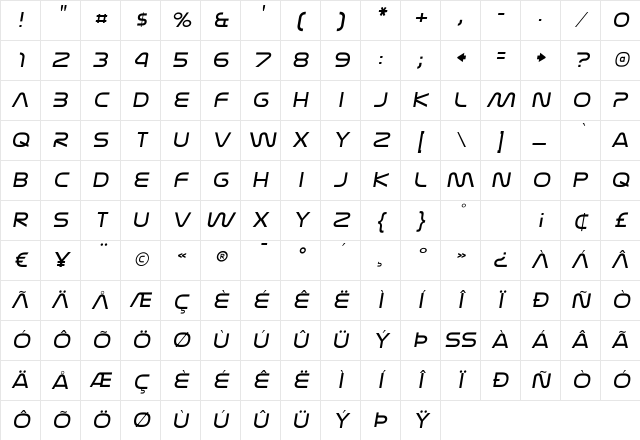
Nasalization Extended Light Italic
Nasalization Extended Light Family
Design Context for Nasalization Extended Light
Nasalization Extended Light is a composed and adaptable typeface that performs quietly and consistently across a wide range of design contexts. The slanted form adds forward momentum and visual energy. Its slender proportions lend an understated elegance to any composition.
Pro Tip: Use Nasalization Extended Light for emphasis, pull quotes, and subheadings where its slanted energy can add rhythm to the layout.